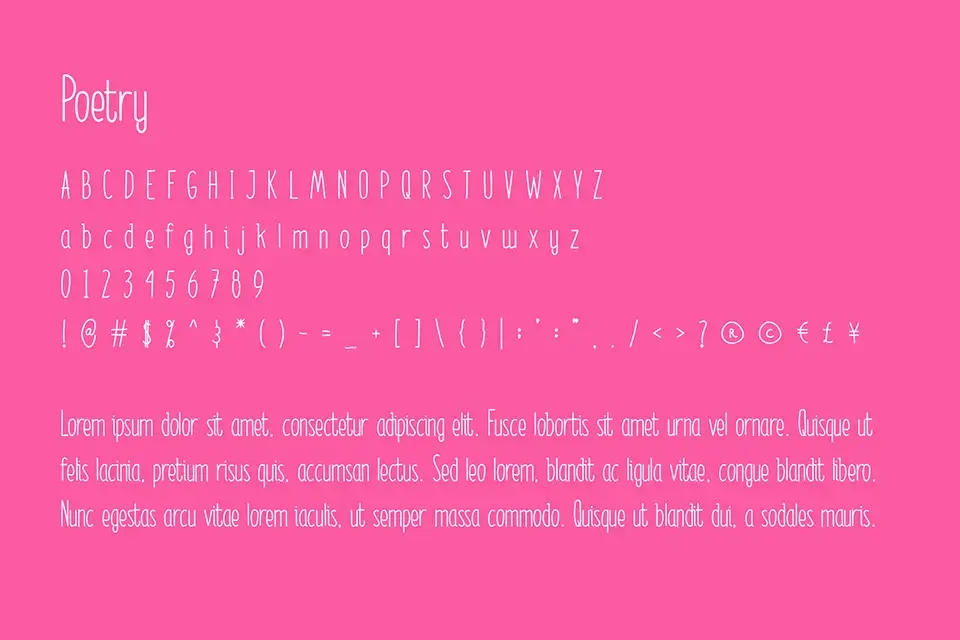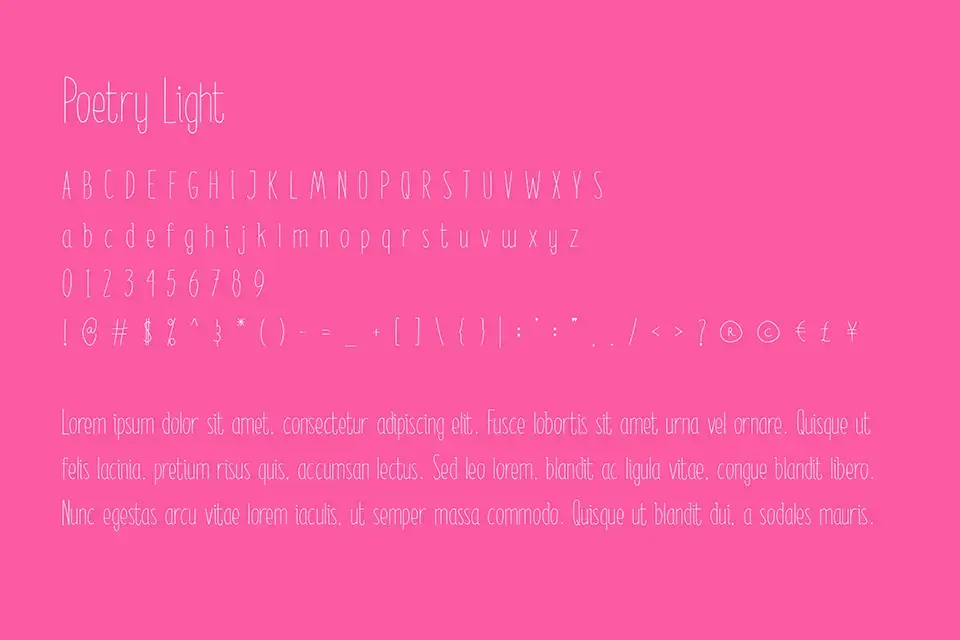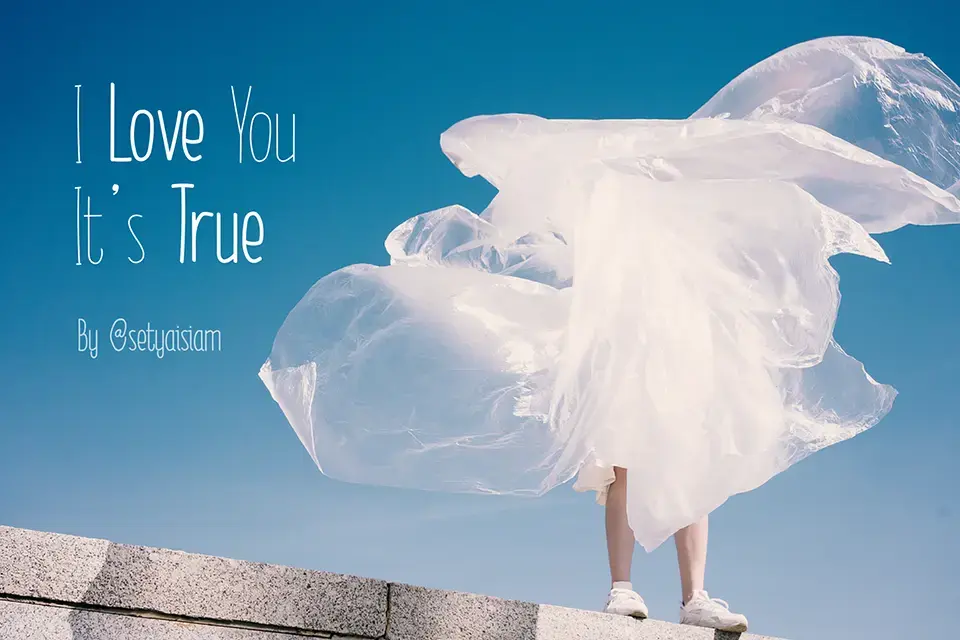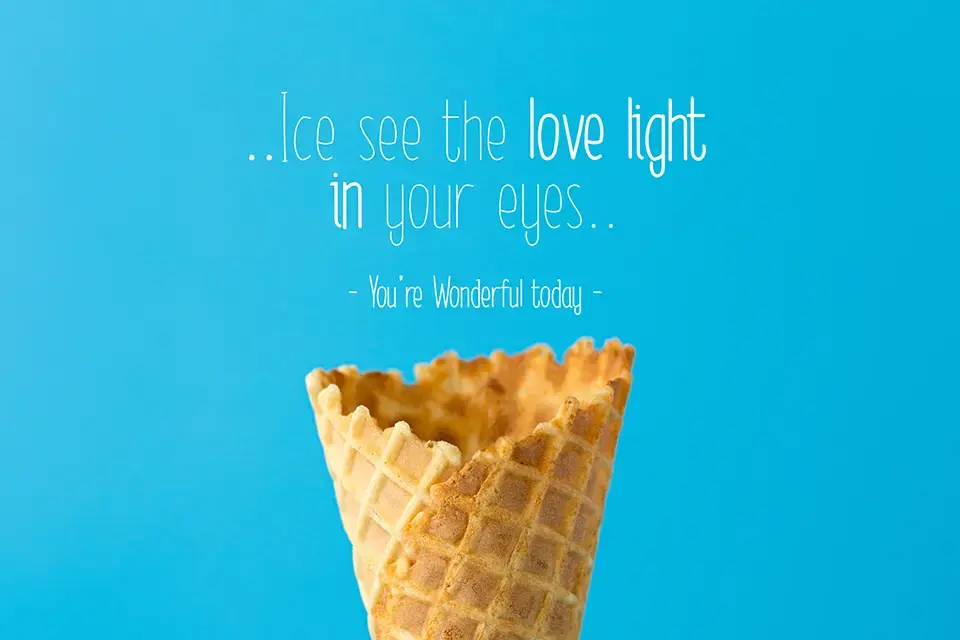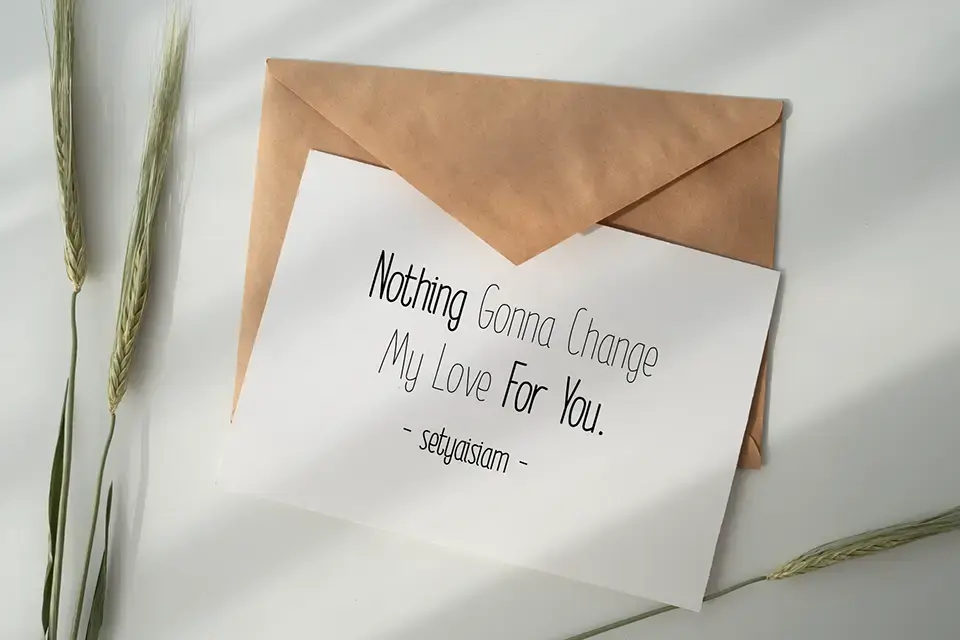
Poetry Font
Poetry is a charming handwritten script font that captures the fluid elegance of casual pen strokes with refined character shaping. Its flowing lines and organic letterforms convey warmth and authenticity, making it exceptionally versatile for design applications ranging from decorative titles and poster headers to elegant branding assets and social media graphics. The font delivers a balanced aesthetic between playful spontaneity and polished sophistication, ideal for projects requiring an intimate, personal touch. Whether used for invitation designs, quote graphics, creative labeling, or display typography, Poetry brings a distinctive handcrafted appeal that elevates visual communication with genuine human warmth and artistic flair.